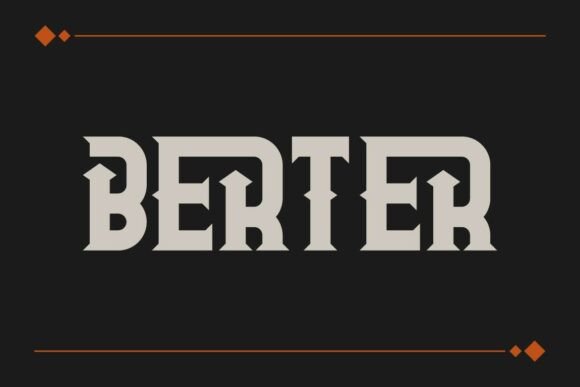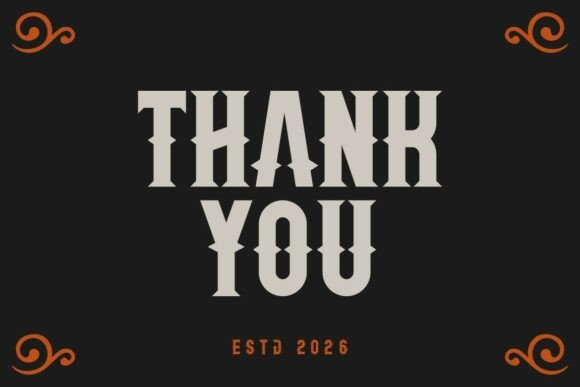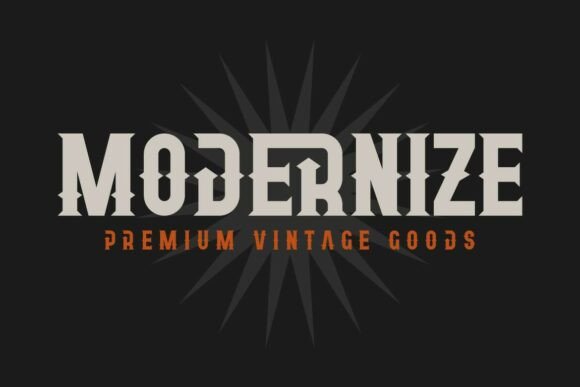
Introduction to Qosta Font
Qosta is a vintage retro display typeface crafted to capture the timeless charm of classic typography.
With bold character shapes, nostalgic styling, and strong visual personality, Qosta brings old-school energy into modern creative projects .
Key Features of Qosta Font